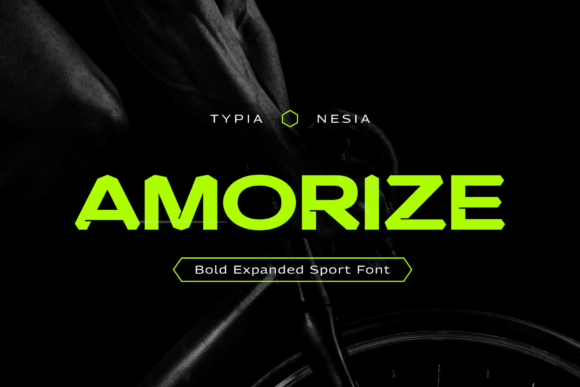
Witness the advent of Amorize Font, a pioneering display typeface that's ready to ignite your designs with its bold elegance. A modern masterpiece, Amorize exudes strength and sophistication, making it the perfect choice for those yearning for impact and distinction. Crafted by the maestros at Typia Nesia, Amorize is a visual symphony that harmonizes classic forms with fresh, contemporary aesthetics.
Step into a world of creativity unbound as you explore the boundless possibilities of Amorize. Its striking characters dance across the screen, demanding attention and leaving a lasting impression. Unleash your imagination and watch as your designs come to life with a renewed sense of energy and vibrancy. Whether you're crafting logos, posters, or eye-catching headlines, Amorize is your trusted companion, guiding you towards design excellence.
More than just a font, Amorize is an experience. It's a tool that empowers you to express yourself, to communicate with clarity and impact. Its versatility knows no bounds, bending effortlessly to your creative vision. From elegant wedding invitations to captivating social media posts, Amorize adapts seamlessly, enhancing your message and leaving your audience awestruck.
Welcome to the captivating world of Amorize Font. Let your creativity soar, break free from the ordinary, and embrace the extraordinary. Discover why Amorize is the font of choice for those who crave distinction and desire to leave an indelible mark on the world of design.